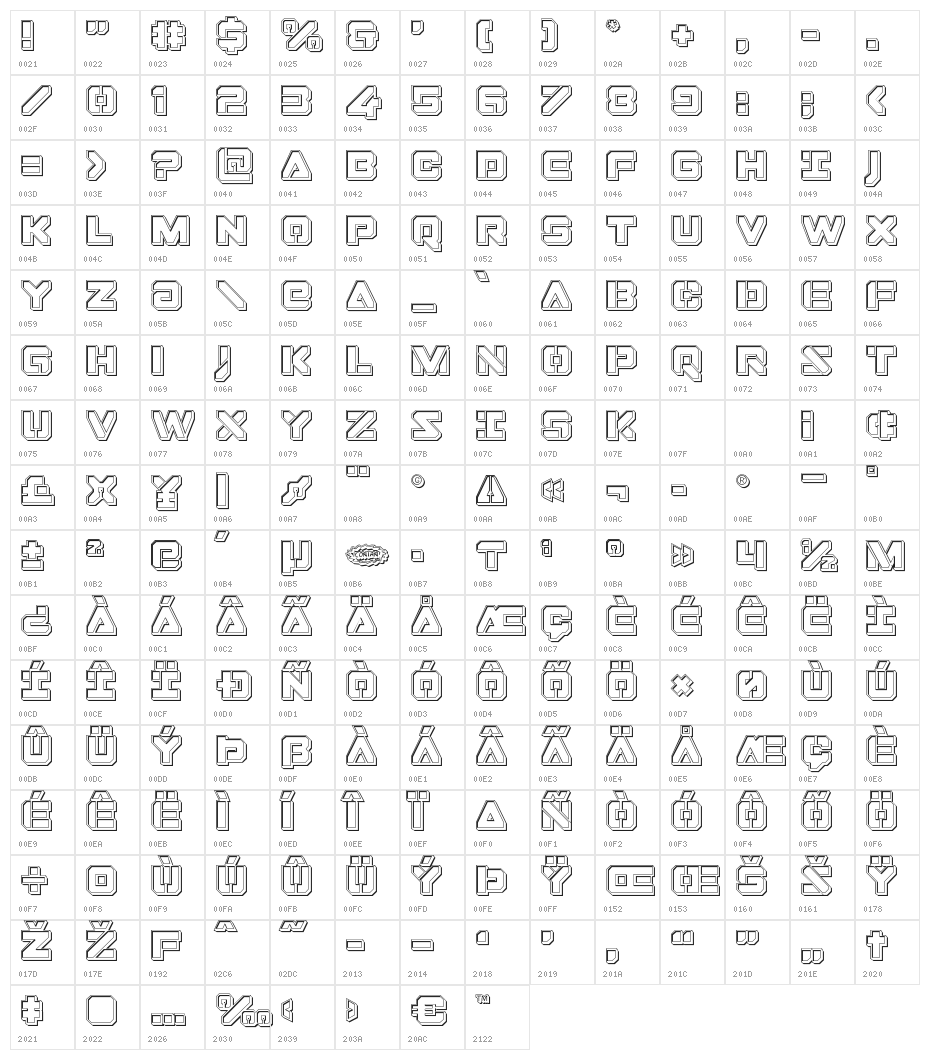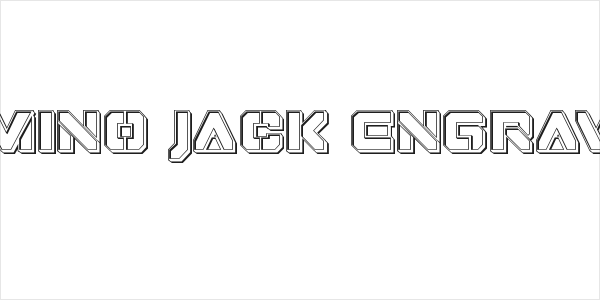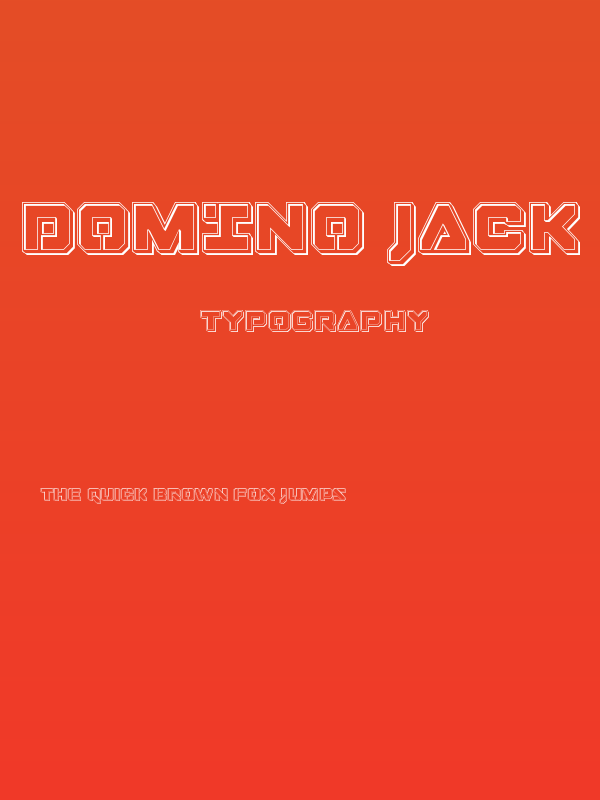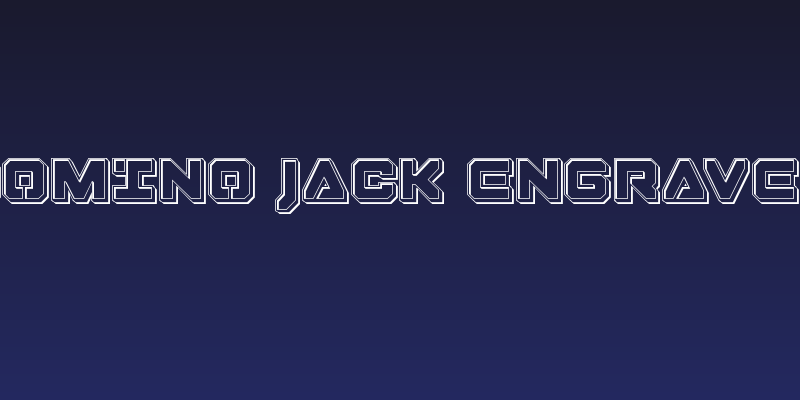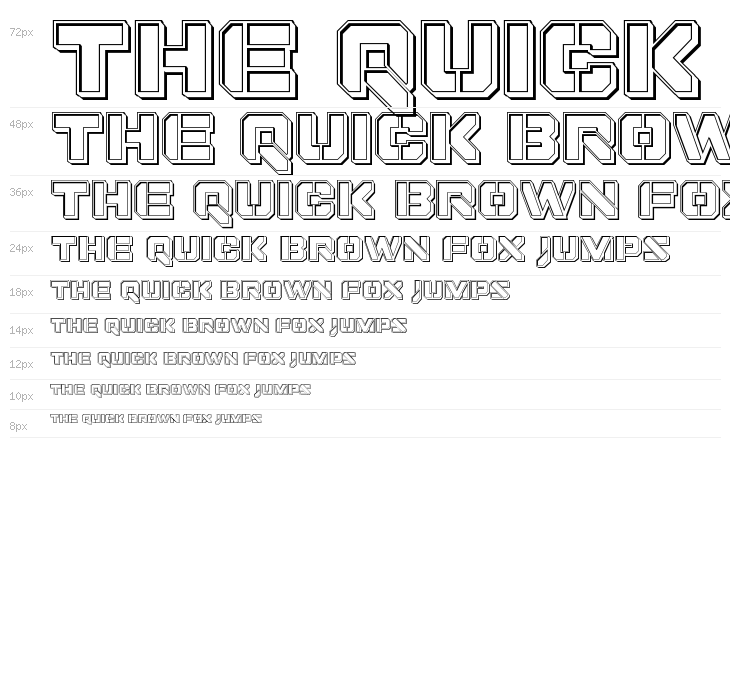
Domino Jack Engraved Font
Domino Jack Engraved Description
This font features a bold, geometric design with a three-dimensional effect, achieved through the use of thick outlines and shadowing. Each character is constructed with angular lines and sharp edges, giving it a modern and industrial feel. The uppercase and lowercase letters maintain a consistent style, with the lowercase slightly smaller but equally bold. Numbers and special characters are designed to match the overall aesthetic, ensuring uniformity across all glyphs. The font's distinct appearance makes it suitable for eye-catching designs where a strong visual impact is desired.